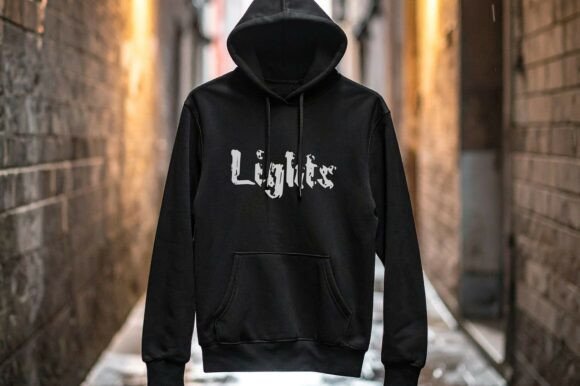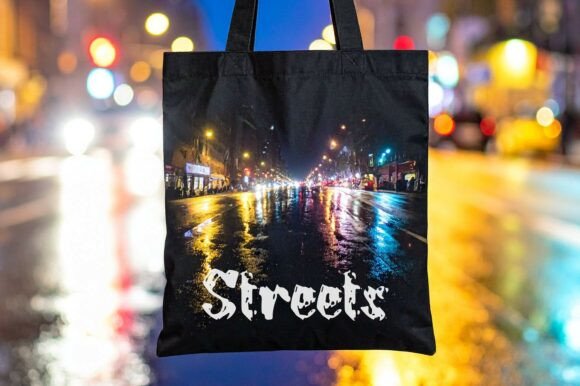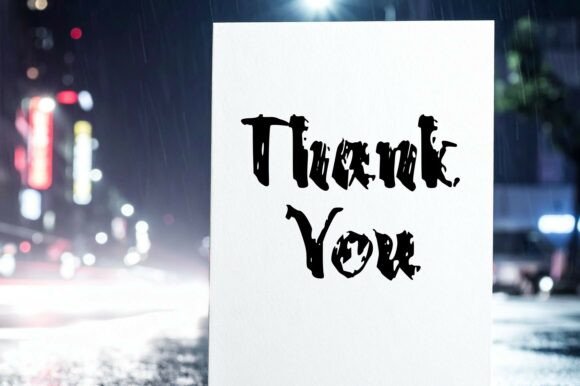
Experience the Allure of Cengkeh Font
Imagine strolling through a bustling city, surrounded by vibrant street art and eclectic fashion trends. The sounds of the city, the sights of the latest designs – it’s a creative feast for the senses. For designers, this is the perfect inspiration to spark a new project. And what better way to capture the essence of the urban vibe than with the Cengkeh Font? This high-quality display font is more than just a design resource – it’s a reflection of the city’s energy and style.
With its unique strokes and hand-painted aesthetic, Cengkeh Font offers a level of detail that’s both striking and readable. Whether you’re working on a fashion brand or an accessory label, this font is the perfect tool to communicate your message. And the best part? You can download Cengkeh Font with a transparent background, making it easy to integrate into your design project.
Cengkeh Font
- Designed to be highly legible at various resolutions and sizes, from 72 dpi to 300 dpi
- Includes a wide range of glyphs and characters, making it suitable for multilingual projects
- Perfect for use in graphic design, digital art, and other creative endeavors
Honest Review: Cengkeh Font
As a designer, I’m always on the lookout for high-quality design resources to elevate my creative projects. Recently, I came across the Cengkeh Font, and I must say, it’s been a game-changer for me.
- Unique Character Styles: The Cengkeh Font boasts a wide range of unique character styles that add a touch of elegance to any design.
- Limited Language Support: The Cengkeh Font currently only supports a limited number of languages, which might be a drawback for designers working on multilingual projects.
Overall, the Cengkeh Font is a fantastic addition to any designer’s arsenal. Its unique character styles, high-quality vectors, and transparent background make it an excellent choice for creative projects. While it has some limitations, I believe it’s a worthwhile resource for designers looking to elevate their designs.
The Cengkeh Font is ideal for creative projects such as branding, packaging, and advertising. It’s also suitable for digital designs like social media graphics, email templates, and website headers.